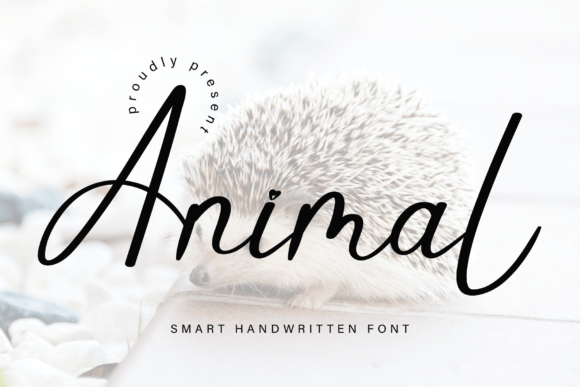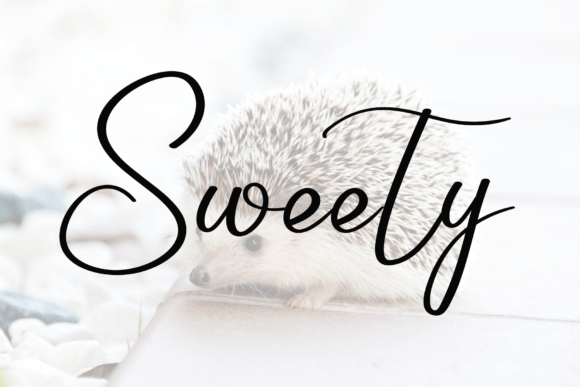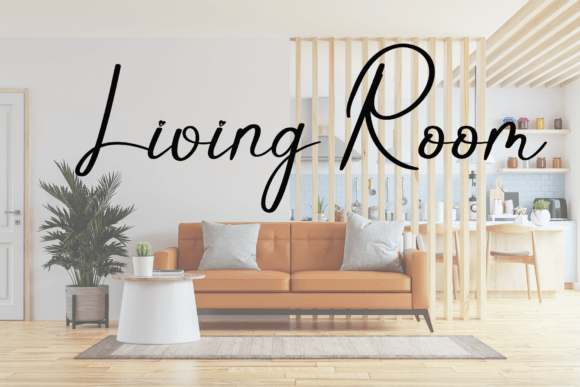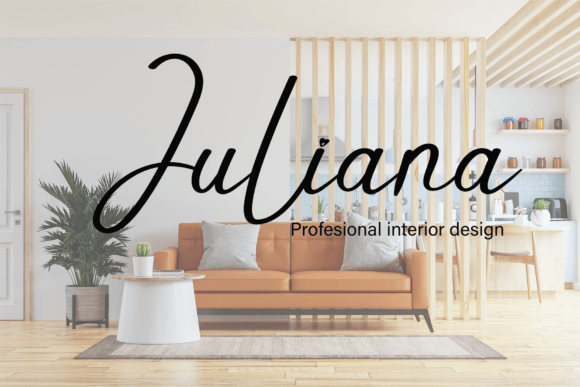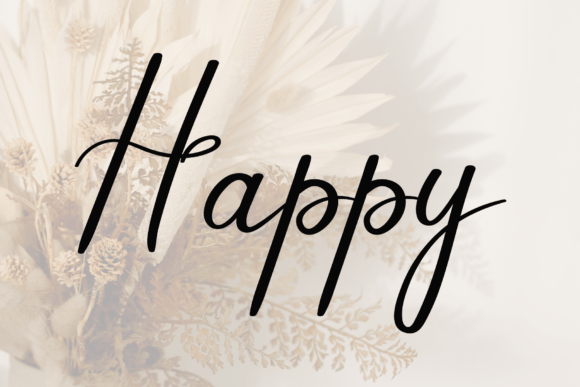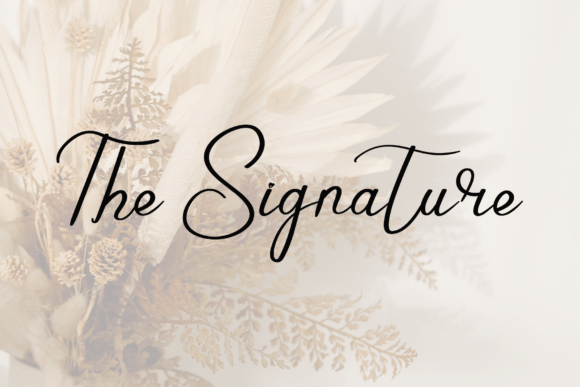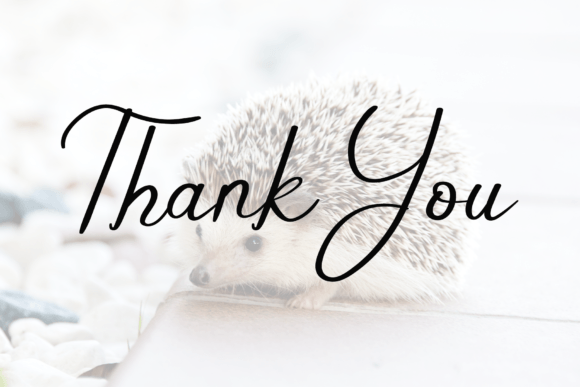
Animal Font
Animal emerges as a meticulously crafted handwritten font, embodying a perfect blend of neatness and beauty. Characterized by an elegant touch, it stands as an ideal choice for your favorite projects, adding a touch of sophistication to your creative endeavors. Its distinct and timeless style invites you to fall in love with its aesthetic charm and offers a versatile tool to create spectacular designs.
The font’s neat and beautiful handwriting carries a sense of precision, making it suitable for a wide array of design applications. Whether you are working on invitations, branding materials, or any project that requires a touch of elegance, Animal steps forward as a reliable and visually pleasing choice.
The elegance inherent in Animal’s design is noteworthy, contributing to its unique appeal. Each stroke and curve has been carefully considered to achieve a harmonious balance, resulting in a font that not only communicates your message but does so with a sense of style and grace.
What makes Animal particularly captivating is its distinct and timeless style. This font transcends fleeting trends, offering a design element that stands the test of time. This timelessness ensures that your projects maintain a classic and enduring quality, making Animal a font that remains relevant across different design contexts.
Beyond its aesthetic qualities, Animal serves as a practical and versatile tool for design enthusiasts. Its elegant touch, combined with a sense of neatness, allows for seamless integration into various design themes. Whether you’re aiming for a vintage-inspired look or a contemporary feel, Animal adapts with ease, showcasing its adaptability as a font of choice.
In essence, Animal is not merely a font; it is an invitation to explore the possibilities of elegant and timeless design. As you embark on your creative journey, let Animal be the companion that transforms your projects into visually spectacular expressions of artistry.